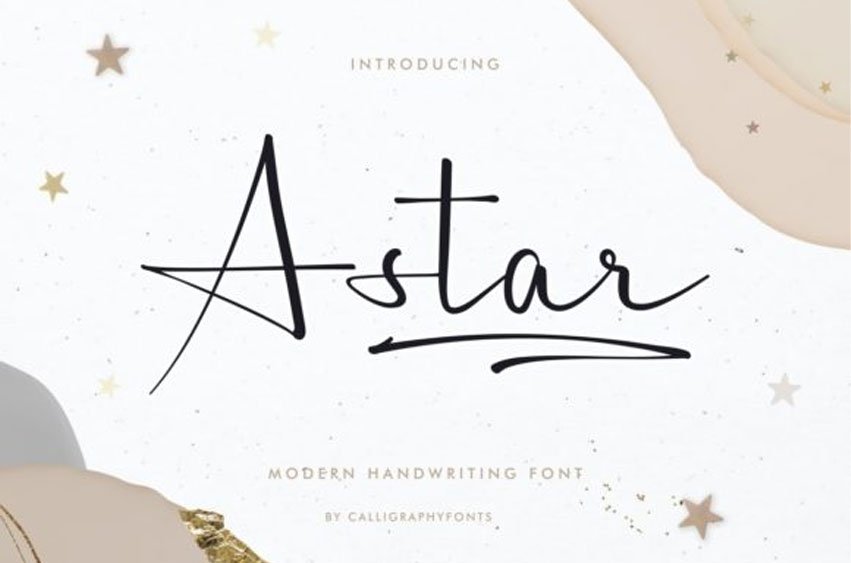
A Star Font
A Star Font is a lovely and delicate script font that exudes elegance and class. This font was particularly crafted for those who need a beautiful and refreshing look to their designs.